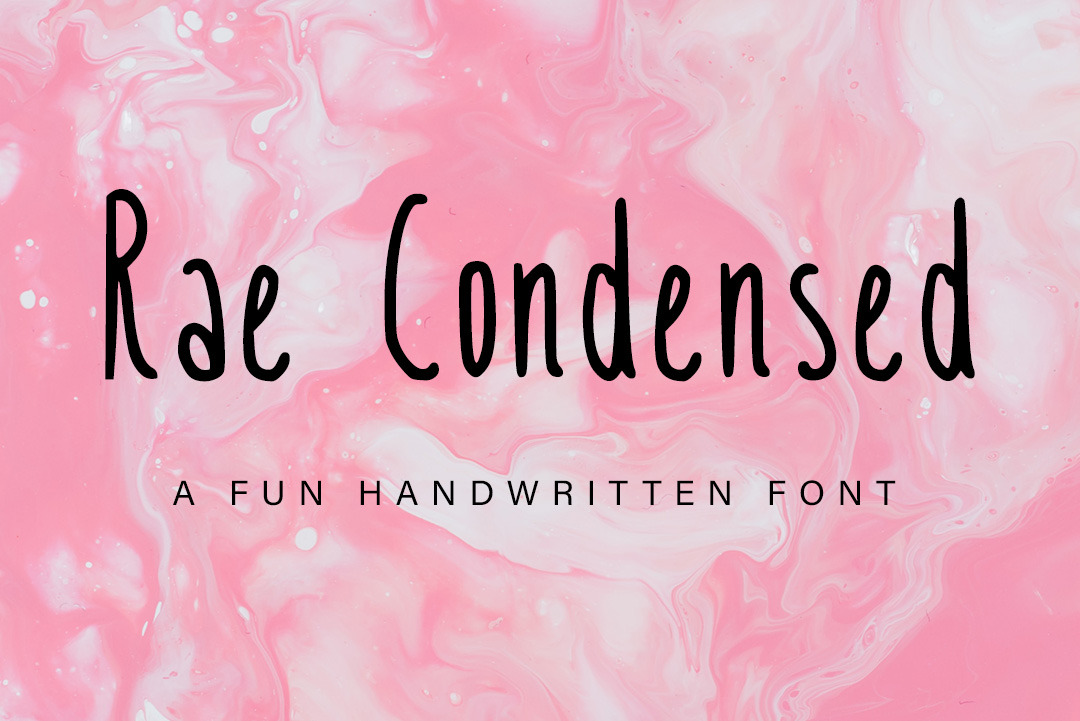
Rae Condensed Handwritten Font
Introducing our Rae Condensed - the perfect addition to any project that needs a touch of whimsy and charm! This playful typeface is full of personality, featuring soft curves, quirky loops, and delightful flourishes that will bring a smile to your audience's face. With a handwritten feel, this font has a unique and personal touch that will add warmth and intimacy to any design. Whether you're creating invitations, greeting cards, logos, or anything in between, this font is sure to impress. So why settle for a boring, standard font when you can add a touch of cuteness and creativity with our new handwritten font?